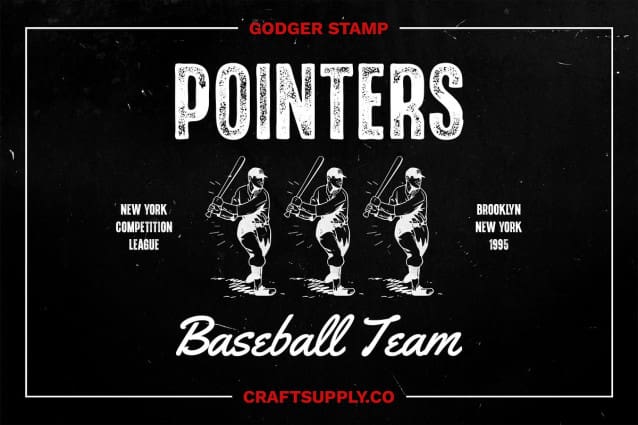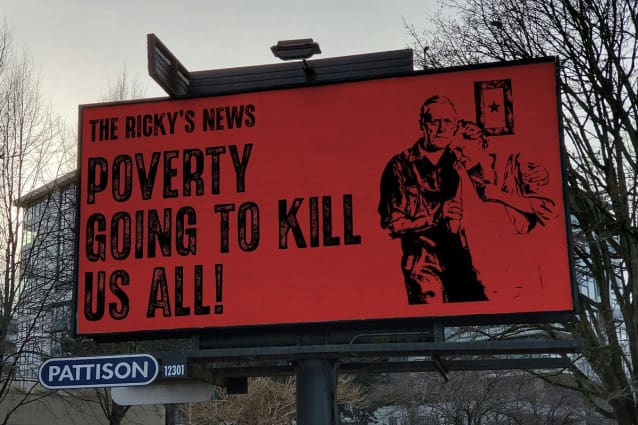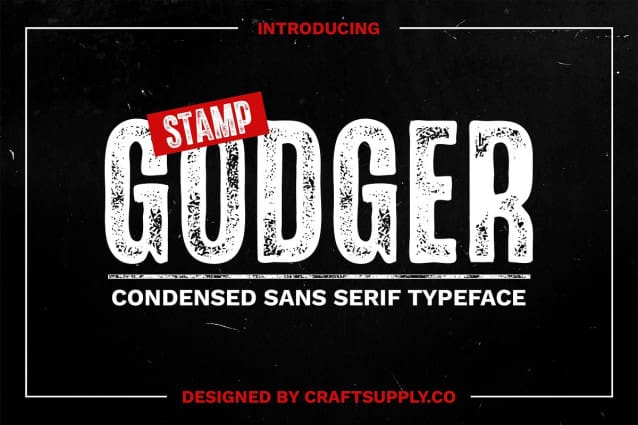
Godger Stamp Font
Godger Stamp Font is a modern sans-serif font featuring a condensed, bold shape paired with a distinctive stamp effect. The slim, solid letterforms are enhanced by a rough printing texture, creating a striking contrast between the font’s sleek design and its vintage-inspired finish.
Rough Texture for a Unique Character The stamp effect introduces a vintage or grunge touch, with uneven edges and slightly distorted details that add character to the font. This rough texture contributes to a unique look, giving Godger Stamp a distinctive retro or industrial vibe that sets it apart.
Perfect for Retro and Industrial Designs Ideal for branding, posters, and promotional materials, Godger Stamp excels in projects that require a strong visual impact with a nostalgic or industrial feel. Its bold, condensed shape and textured finish make it an excellent choice for designs aiming to stand out with a memorable and unique style.
Versatile for Various Creative Applications With its combination of bold design and vintage texture, Godger Stamp is versatile across different creative projects. Whether you’re developing retro branding or eye-catching promotional materials, this font provides a bold and distinctive appearance that ensures your designs make a lasting impression.